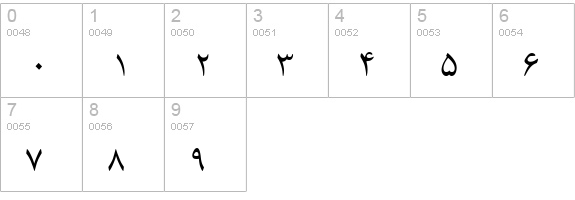
B Badr Font Details
The B Badr font is a stunning typeface that exudes elegance and sophistication. Its sleek lines and modern design make it perfect for a wide range of projects, from branding to marketing materials. This versatile font is sure to make your text stand out and leave a lasting impression on your audience. Best of all, the B Badr font is free to download at FontsMarket.com. Whether you're a designer looking to add a touch of class to your work or a business owner wanting to elevate your brand, this font is a fantastic choice. Don't miss out on the opportunity to enhance your projects with this beautiful and stylish typeface. Download the B Badr font today and take your designs to the next level!